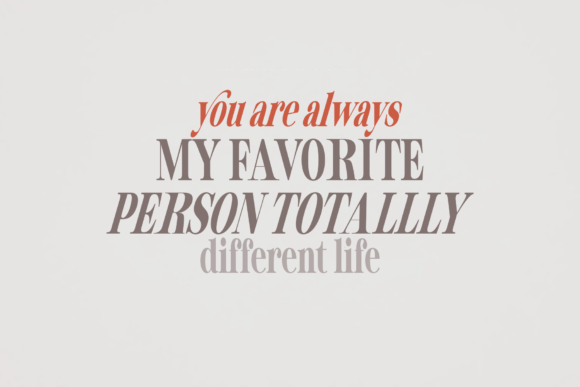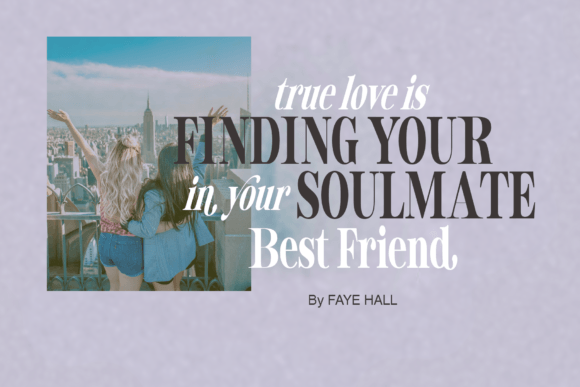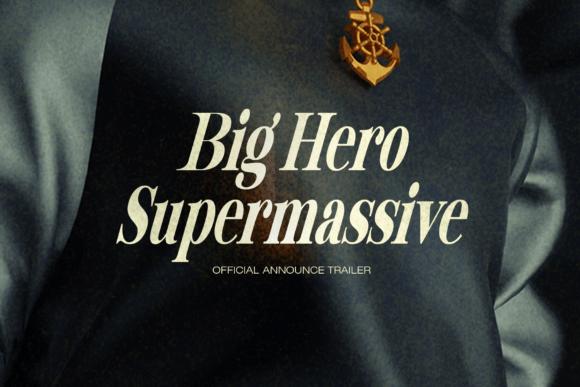
Introduction to Ponita Font
Ponita is a modern and elegant serif font.
Key Features of Ponita Font
Why Choose Ponita Font?
Ponita Font offers exceptional quality and versatility, making it a valuable addition to your design toolkit. Whether you’re creating for personal projects or commercial use, Ponita Font delivers professional results.